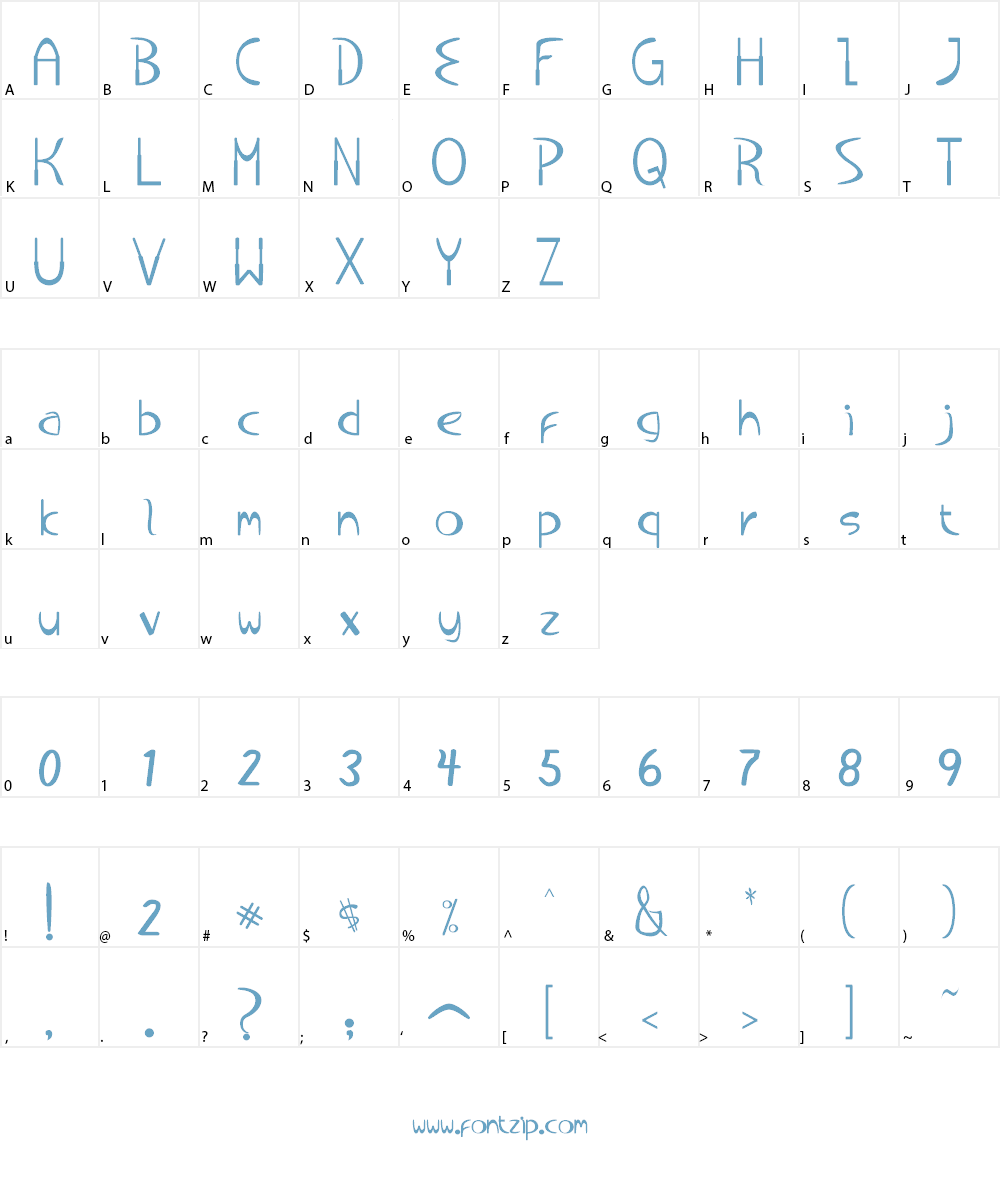
there's big science, there's stadium rock, there's world wars. BabyDoll is the kind of font you design when you're living from your car, parking in motel lots, envying people their gideon bibles and hot showers. when you have this fantasy that you're whatching dexter's labratory on the cartoon network and eating a donut.